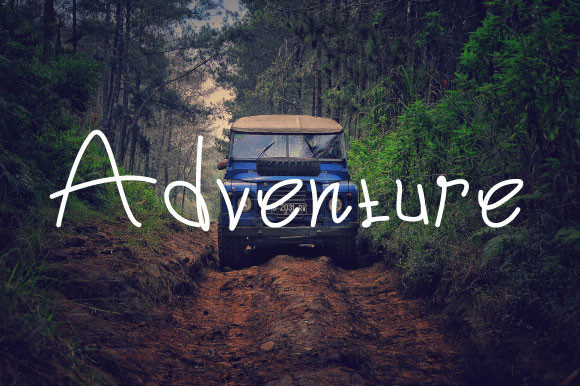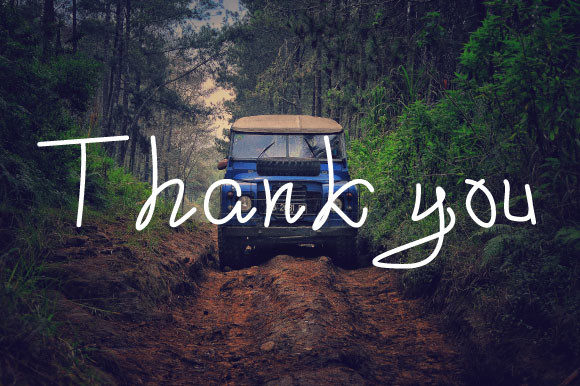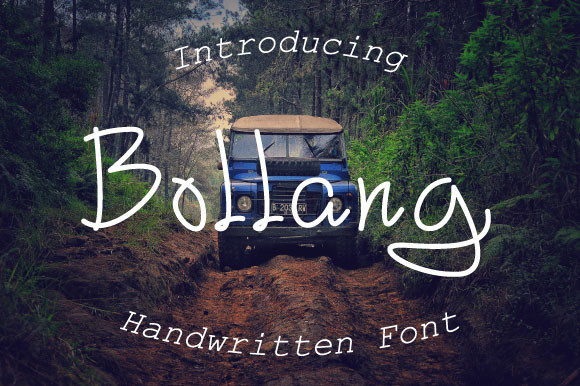
Bollang Font: The Perfect Handwritten Font for Chalkboard Quotes and Teaching Materials
Are you a designer, crafter, or educator looking for a font that can add a personal and realistic touch to your designs? Look no further than Bollang Font! This cute and simple lettered handwritten font is perfect for creating chalkboard quotes, teaching materials, and other designs that require a authentic look.
What is Bollang Font?
Bollang Font is a carefully crafted handwritten font that mimics the look of chalkboard writing. Its simple and elegant lettering style makes it perfect for creating a wide range of designs, from inspirational quotes to educational materials. The font’s authentic look will add a personal touch to your designs, making them stand out from the crowd.
Features of Bollang Font
Bollang Font comes with a range of features that make it an ideal choice for designers and crafters. Some of its key features include:
- Cute and Simple Design: Bollang Font has a cute and simple design that is perfect for creating chalkboard quotes and teaching materials.
- Handwritten Style: The font has a handwritten style that gives it an authentic and personal look.
- Easy to Read: The font is easy to read, making it perfect for creating educational materials and quotes.
- Versatile: Bollang Font can be used for a wide range of designs, from digital to print.
Uses of Bollang Font
Bollang Font can be used for a variety of purposes, including:
- Chalkboard Quotes: Create inspirational and motivational quotes that look like they were written on a chalkboard.
- Teaching Materials: Use Bollang Font to create educational materials, such as worksheets, posters, and presentations.
- Crafting: Add a personal touch to your crafting projects, such as planners, journals, and cards.
- Digital Designs: Use Bollang Font to create digital designs, such as social media graphics, blog posts, and website headers.
Why Choose Bollang Font?
There are many reasons why Bollang Font is an ideal choice for designers and crafters. Here are a few:
- Unique Look: Bollang Font has a unique look that will add a personal touch to your designs.
- High-Quality: The font is high-quality and comes with a range of features that make it perfect for creating professional-looking designs.
Tips for Using Bollang Font
Here are a few tips for using Bollang Font:
- Use it for Headings: Bollang Font is perfect for creating headings and titles that need to stand out.
- Experiment with Colors: Try using different colors to add some personality to your designs.
- Pair it with Other Fonts: Bollang Font can be paired with other fonts to create a unique and interesting look.
- Use it for Digital Designs: Bollang Font can be used for digital designs, such as social media graphics and website headers.
Bollang Font is a cute and simple lettered handwritten font that is perfect for creating chalkboard quotes, teaching materials, and other designs that require a authentic look. Its unique look, ease of use, and affordability make it an ideal choice for designers and crafters. Whether you’re creating digital designs or print materials, Bollang Font is a great choice for adding a personal touch to your work.